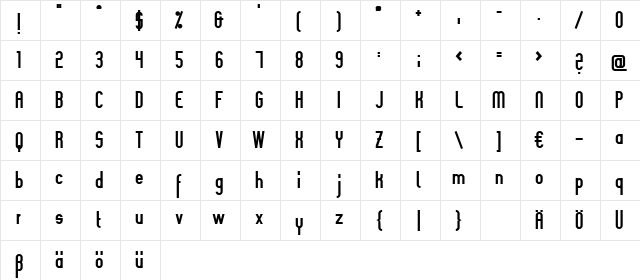
Complete Slimania Bold glyph index. Displaying only characters natively supported by Slimania Bold font.
Slimania is a composed and adaptable typeface that performs quietly and consistently across a wide range of design contexts. Its bold stroke weight gives it real presence on the page.